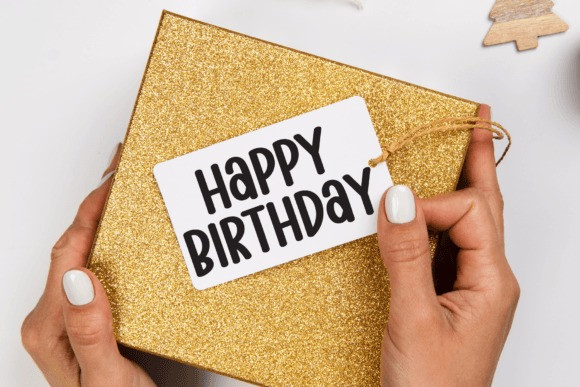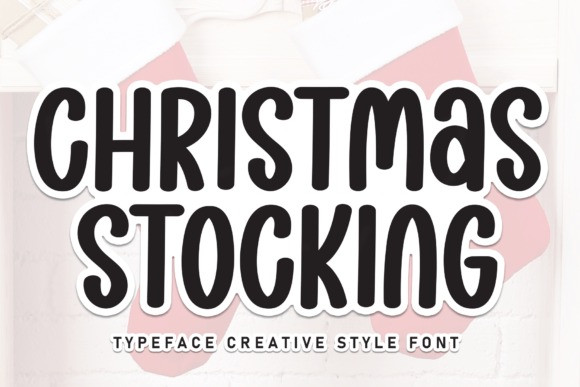
Christmas Stocking Font
Christmas Stocking Font is a sweet and friendly handwritten font. Its natural and unique style makes it incredibly fitting to a large pool of designs. The only limit is your imagination!